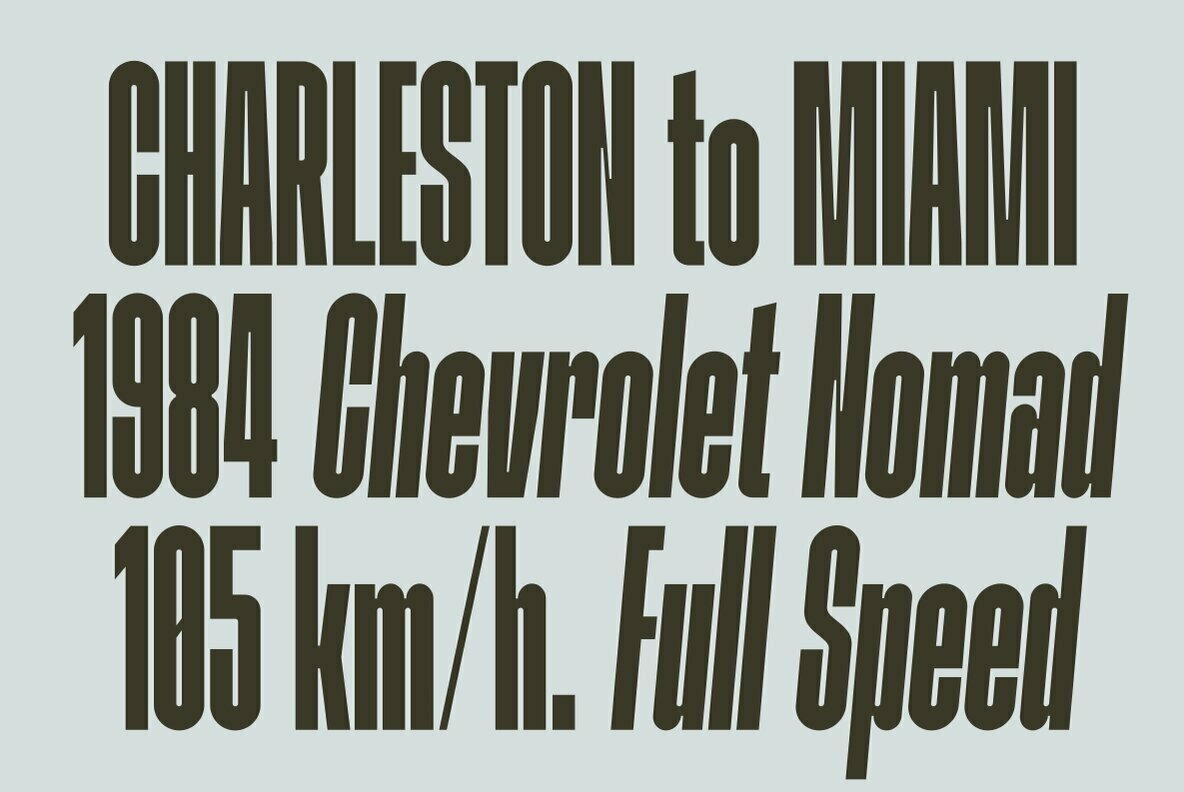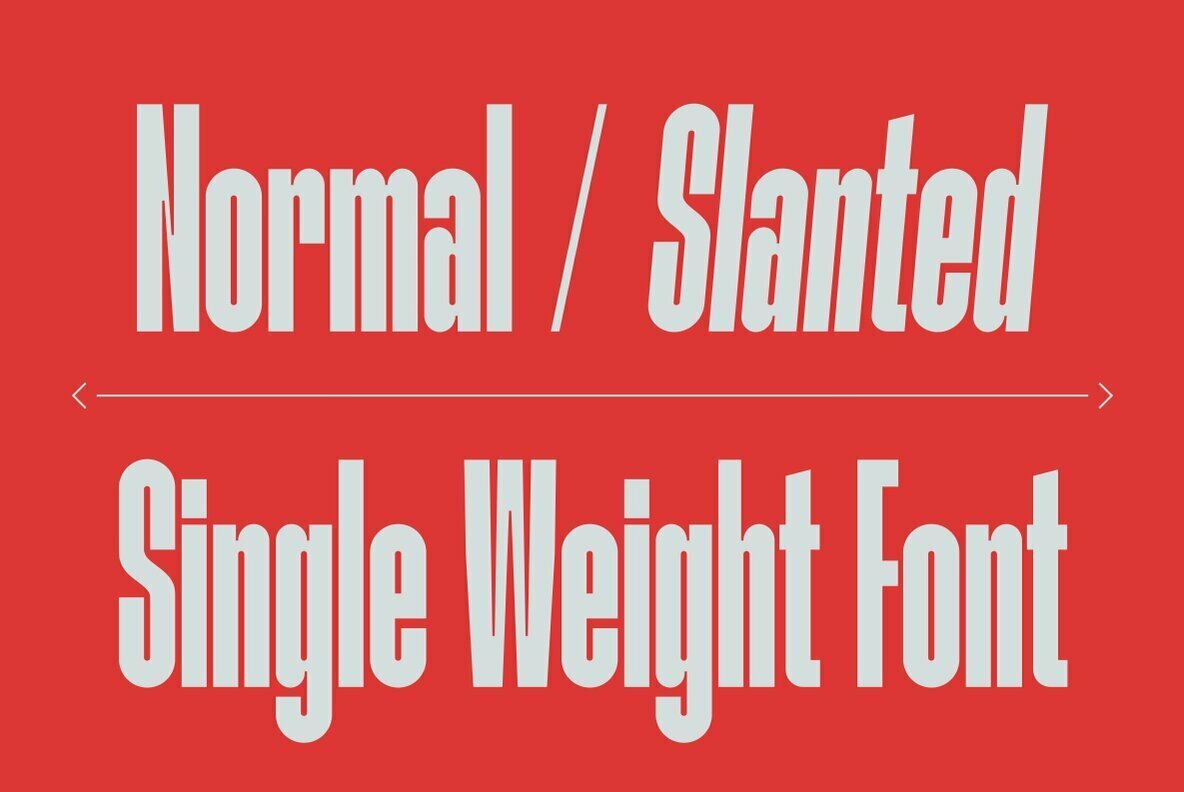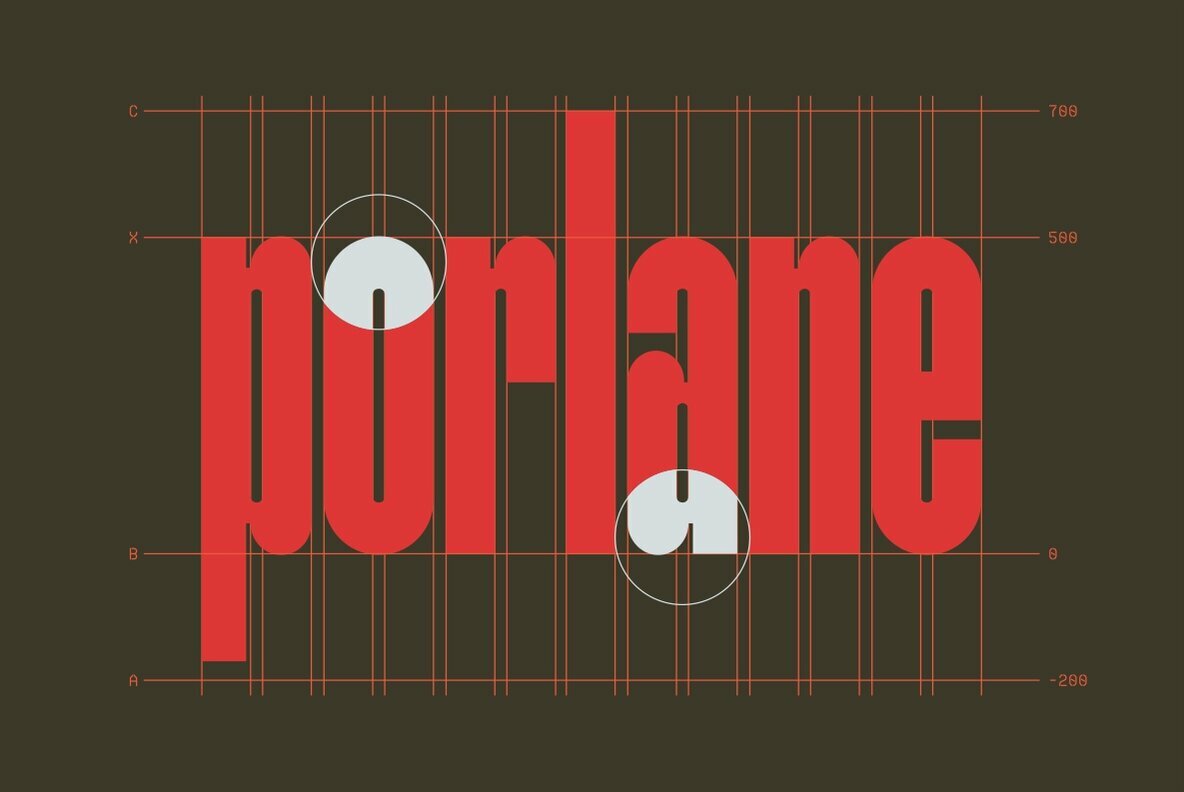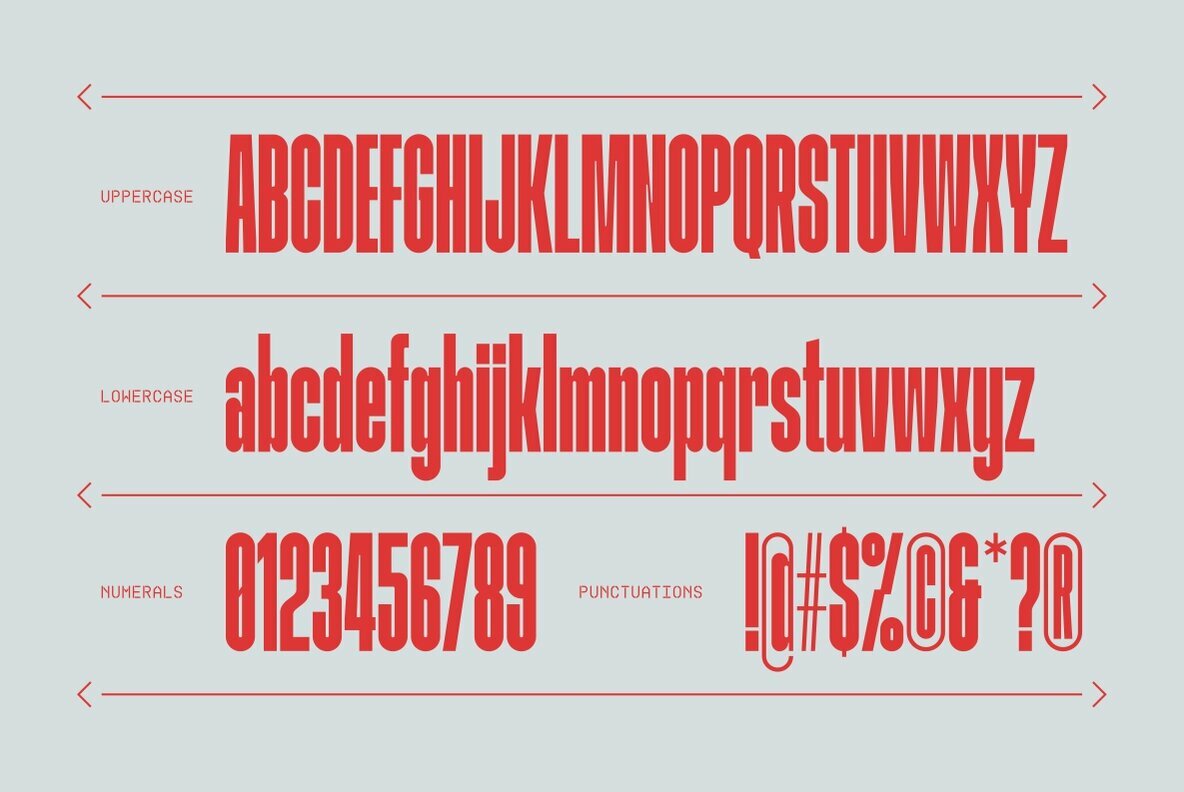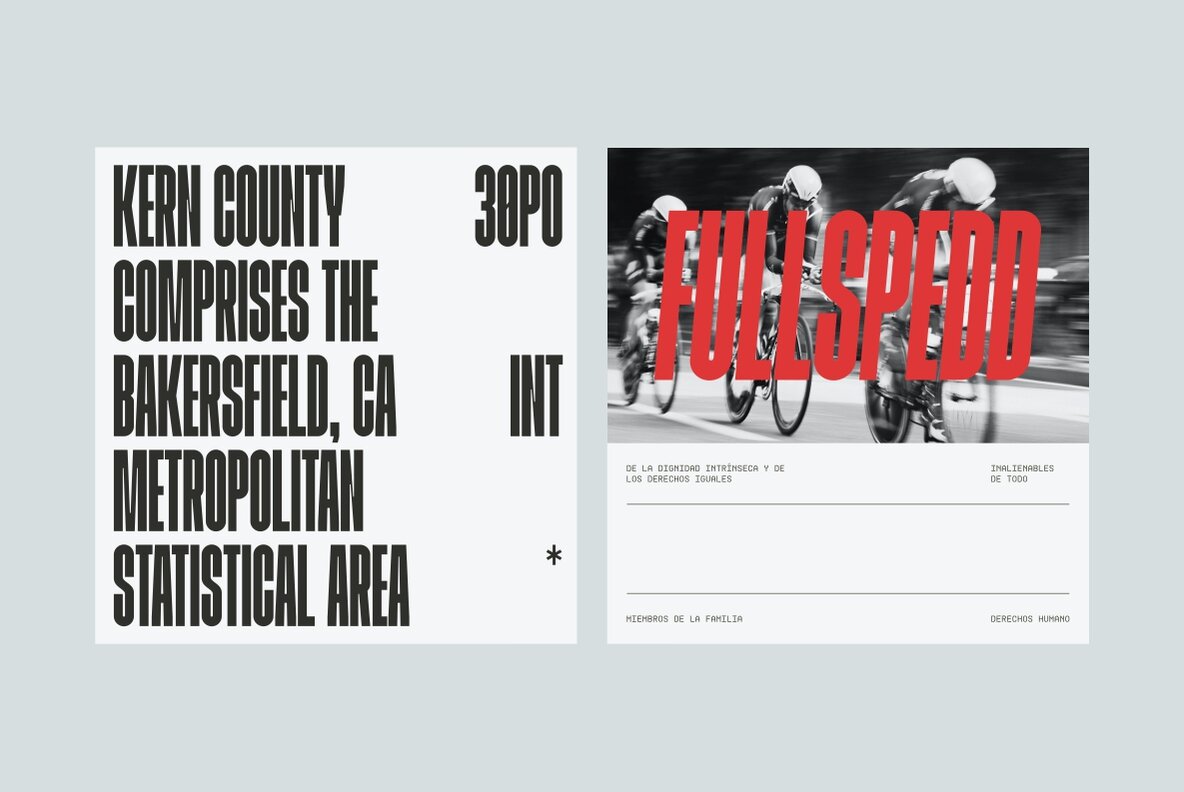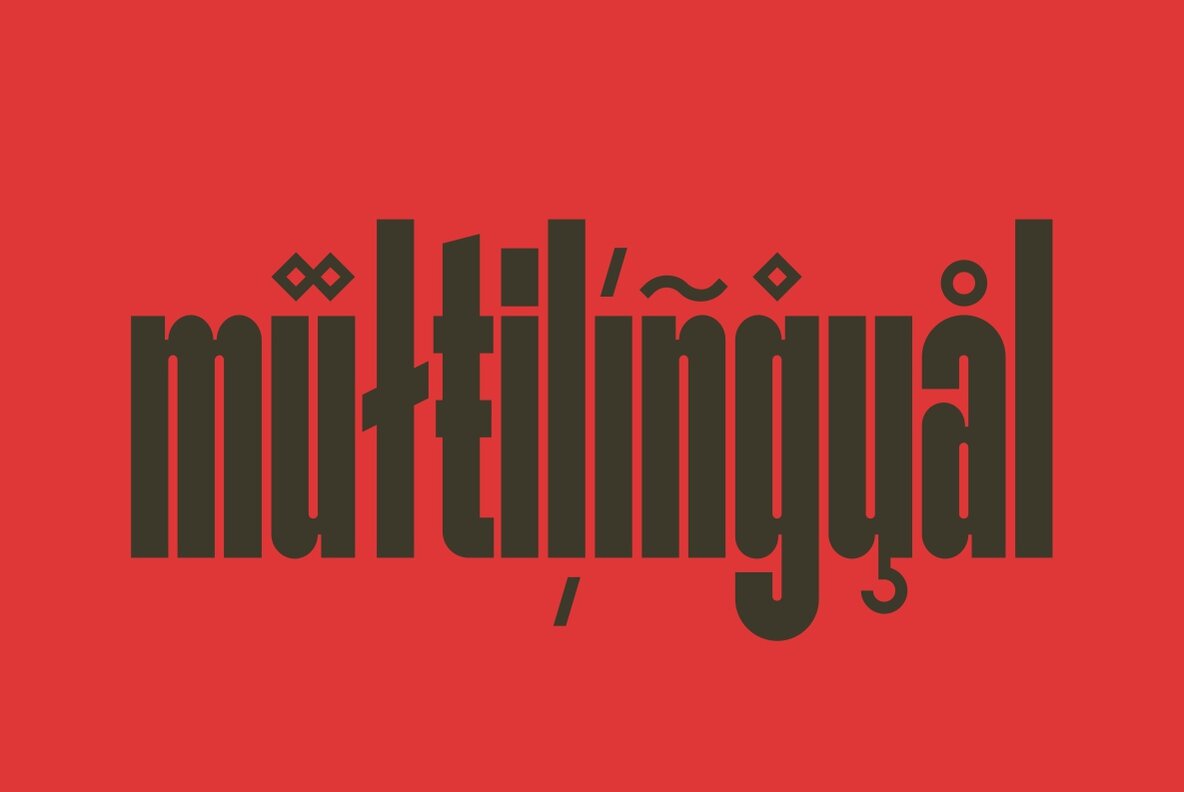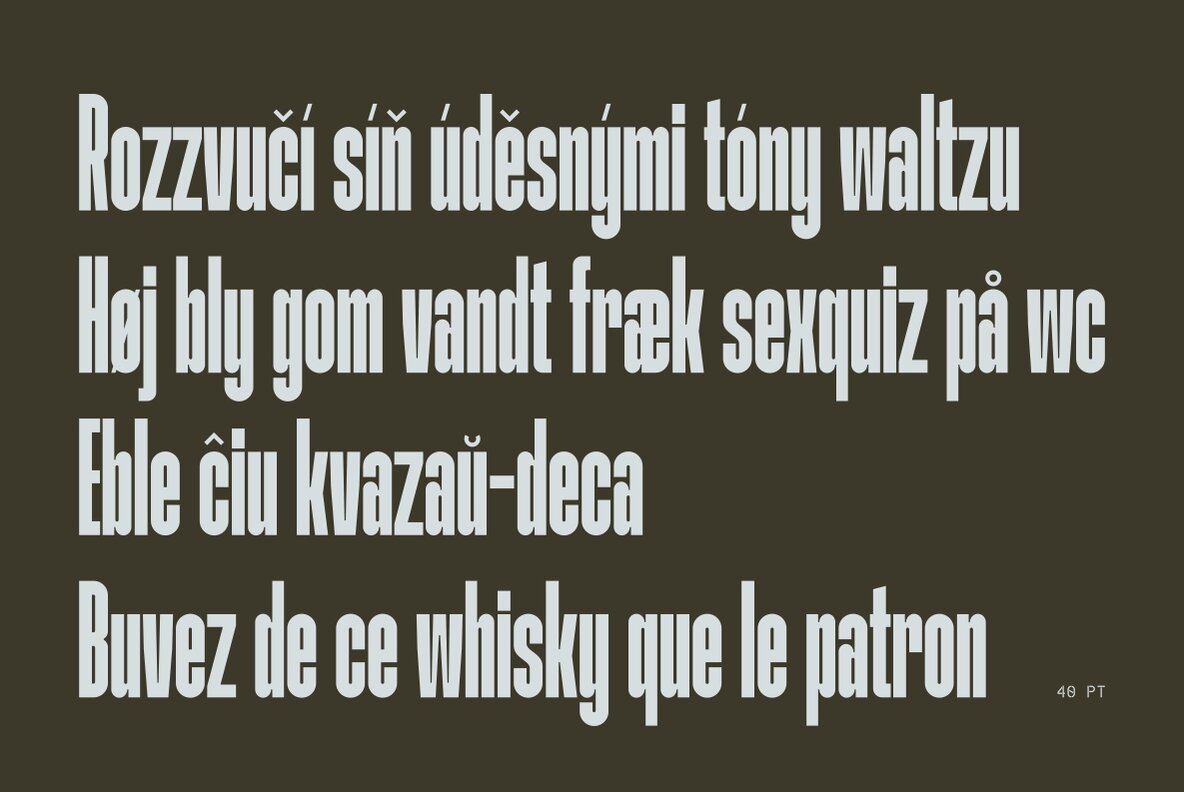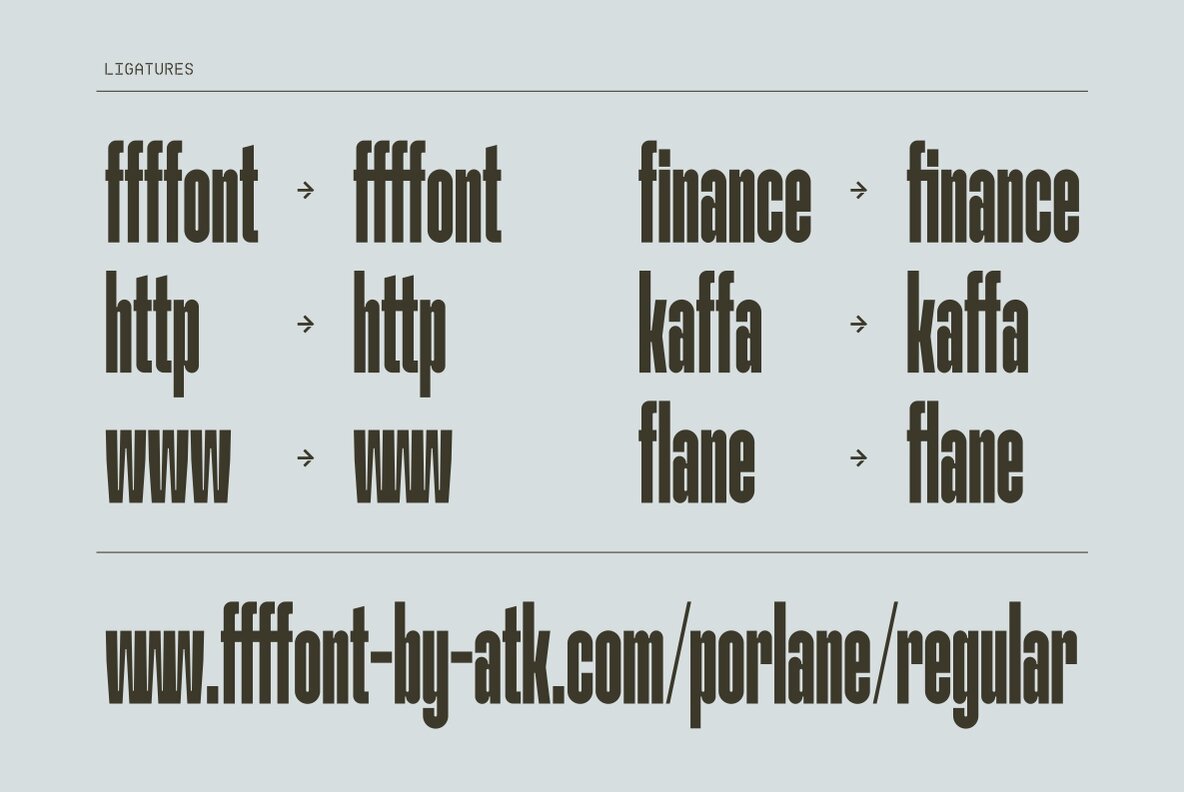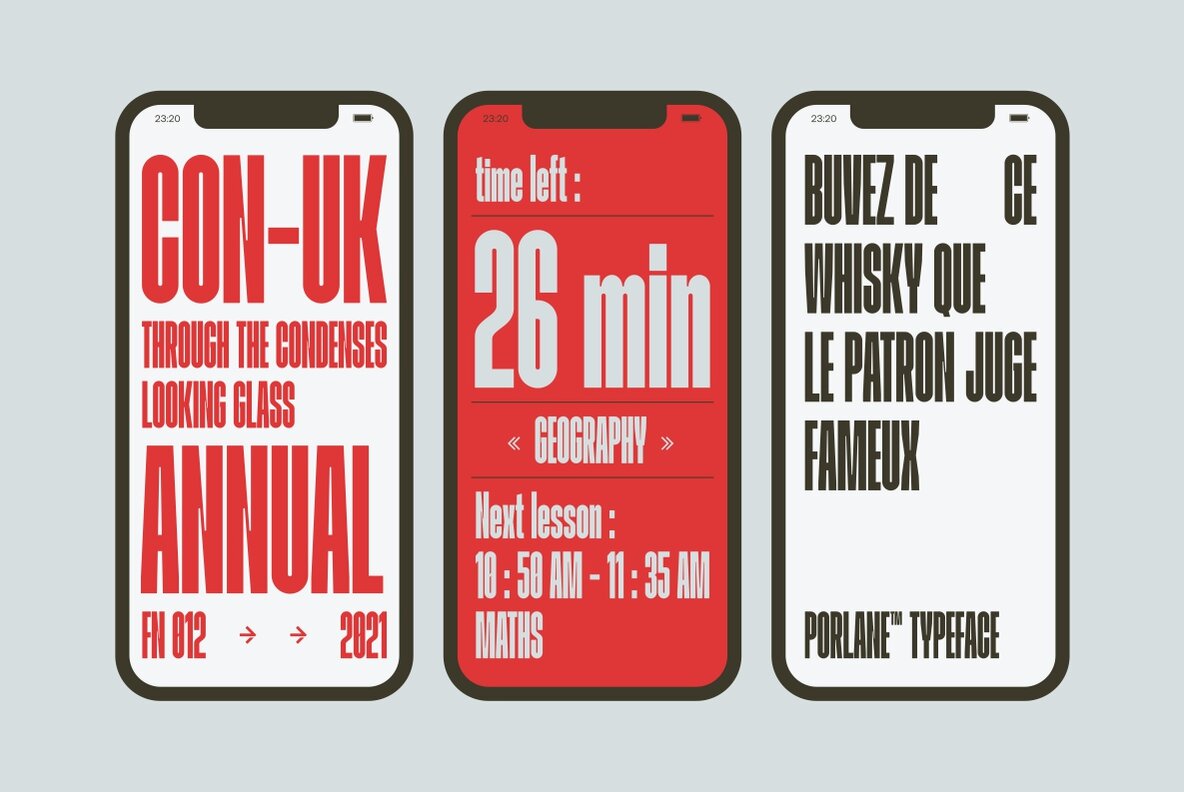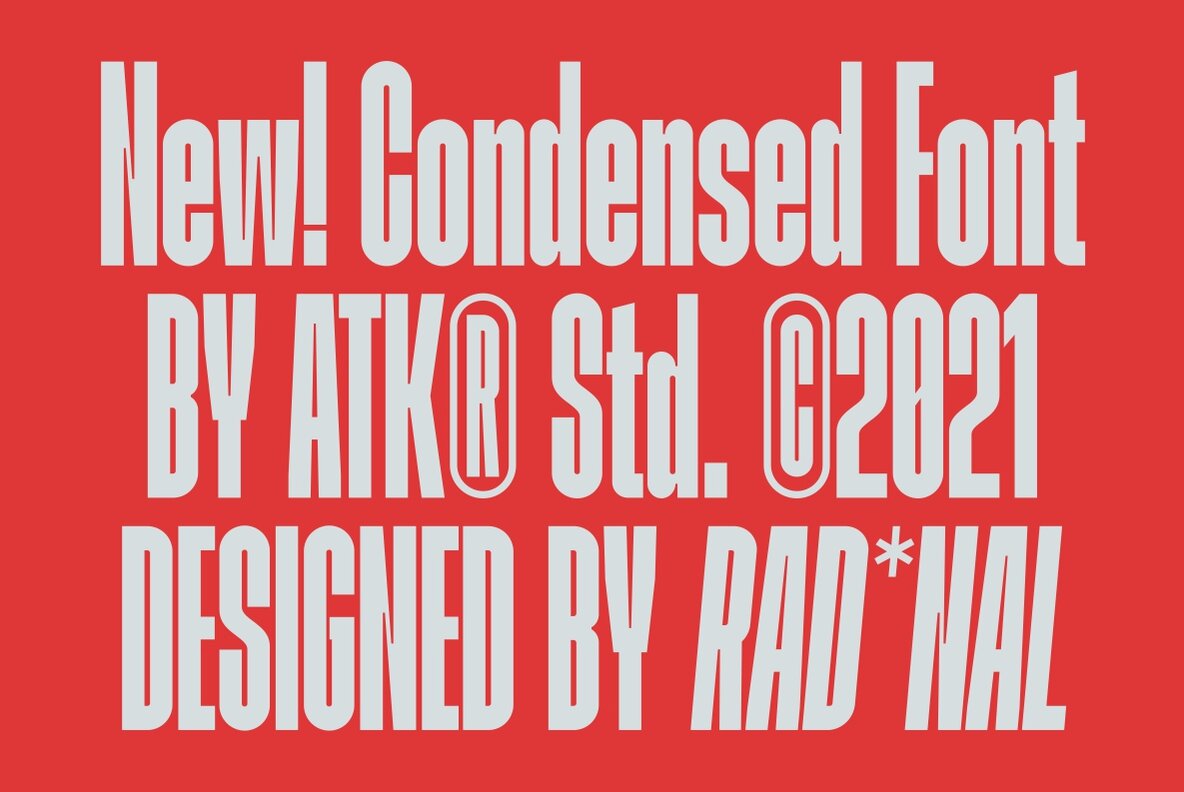
Porlane Font
Porlane Regular
Porlane Slanted
Porlane, designed by ATK Studio, is a masterful condensed sans-serif typeface ideal for bold titles. Crafted with a focus on legibility, its expressive shapes lend themselves well to contemporary design. Whether browsing online or in print, Porlane holds a commanding presence that cannot be overlooked. The typeface comes in a single weight, combining simplicity with a unique visual flair. Its high x-height and tight line spacing make it a great choice for Latin languages, ensuring clarity and readability across various design contexts.Porlane: A Bold Choice for Distinctive Titles
ATK Studio is a type design practice founded in 2018 by Indonesian designer Radinal Riki. Based in Bandung, Indonesia, the studio focuses on experimental display and monospaced fonts, building a growing library of tech-inspired and unconventional typefaces. Known for its distinctive approach to letterform desi...